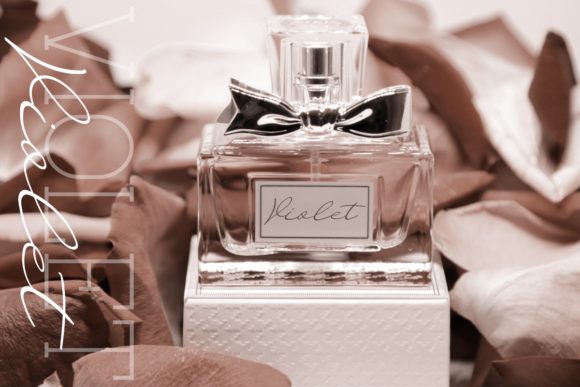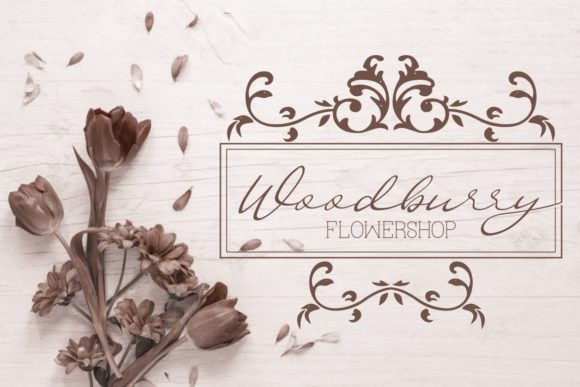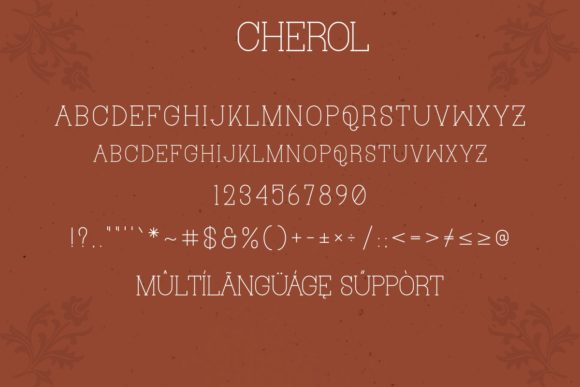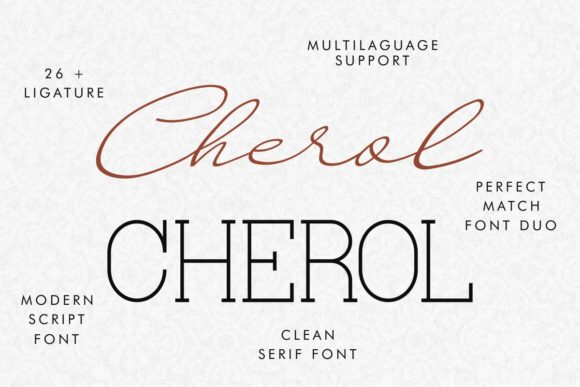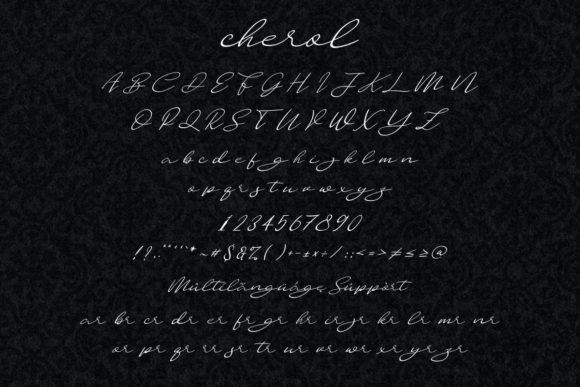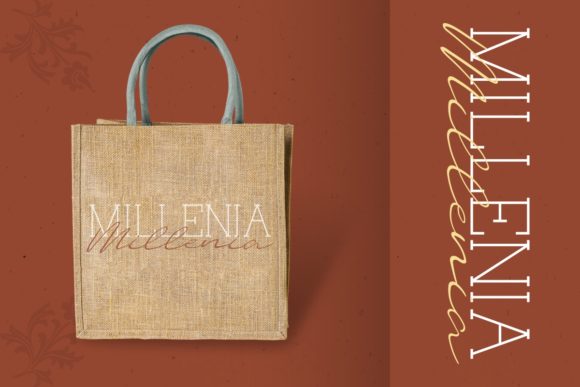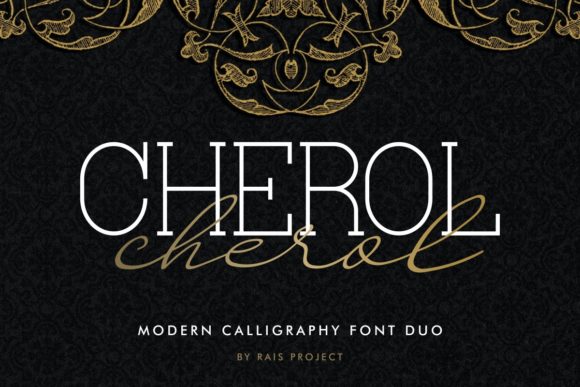
Cherol Font: Elevate Your Designs with a Fresh and Elegant Serif Font
Are you tired of using the same old fonts in your designs? Look no further than Cherol Font, a thin lettered and fresh serif font that’s perfect for adding a touch of elegance to your creative projects. With its unique blend of classic and modern elements, Cherol Font is sure to make your designs stand out from the crowd.
What is Cherol Font?
Cherol Font is a serif font that’s characterized by its thin letters and fresh, modern aesthetic. It’s a versatile font that can be used in a wide range of projects, from digital designs to print materials. Whether you’re a designer, crafty DIY enthusiast, or simply someone who loves to create, Cherol Font is a great addition to your font collection.
Key Features of Cherol Font
So, what makes Cherol Font so special? Here are just a few of its key features:
- Thin letters: Cherol Font features thin letters that are perfect for creating elegant and sophisticated designs.
- Fresh and modern aesthetic: Unlike traditional serif fonts, Cherol Font has a fresh and modern feel that’s perfect for designs that need a bit of edge.
- Versatile: Cherol Font can be used in a wide range of projects, from digital designs to print materials.
- Elegant and refined: Cherol Font has an elegant and refined feel that’s perfect for designs that require a touch of sophistication.
How to Use Cherol Font in Your Designs
So, how can you use Cherol Font in your designs? Here are a few ideas to get you started:
- Digital designs: Use Cherol Font in your digital designs, such as social media graphics, blog posts, and website headers.
- Print materials: Cherol Font is perfect for print materials, such as brochures, flyers, and business cards.
- Branding and logos: Use Cherol Font to create elegant and sophisticated branding and logos.
- Crafting and DIY projects: Cherol Font is a great addition to any crafting or DIY project, such as handmade cards, invitations, and scrapbooking.
Tips for Pairing Cherol Font with Other Fonts
When pairing Cherol Font with other fonts, here are a few tips to keep in mind:
- Contrast with bold fonts: Pair Cherol Font with bold fonts for a striking contrast that adds visual interest to your designs.
- Match with similar serif fonts: Pair Cherol Font with other serif fonts that have a similar feel and aesthetic.
- Experiment with script fonts: Pair Cherol Font with script fonts for a elegant and sophisticated look.
In conclusion, Cherol Font is a versatile and elegant serif font that’s perfect for adding a touch of sophistication to your designs. With its thin letters and fresh, modern aesthetic, Cherol Font is sure to make your designs stand out from the crowd. Whether you’re a designer, crafty DIY enthusiast, or simply someone who loves to create, Cherol Font is a great addition to your font collection.